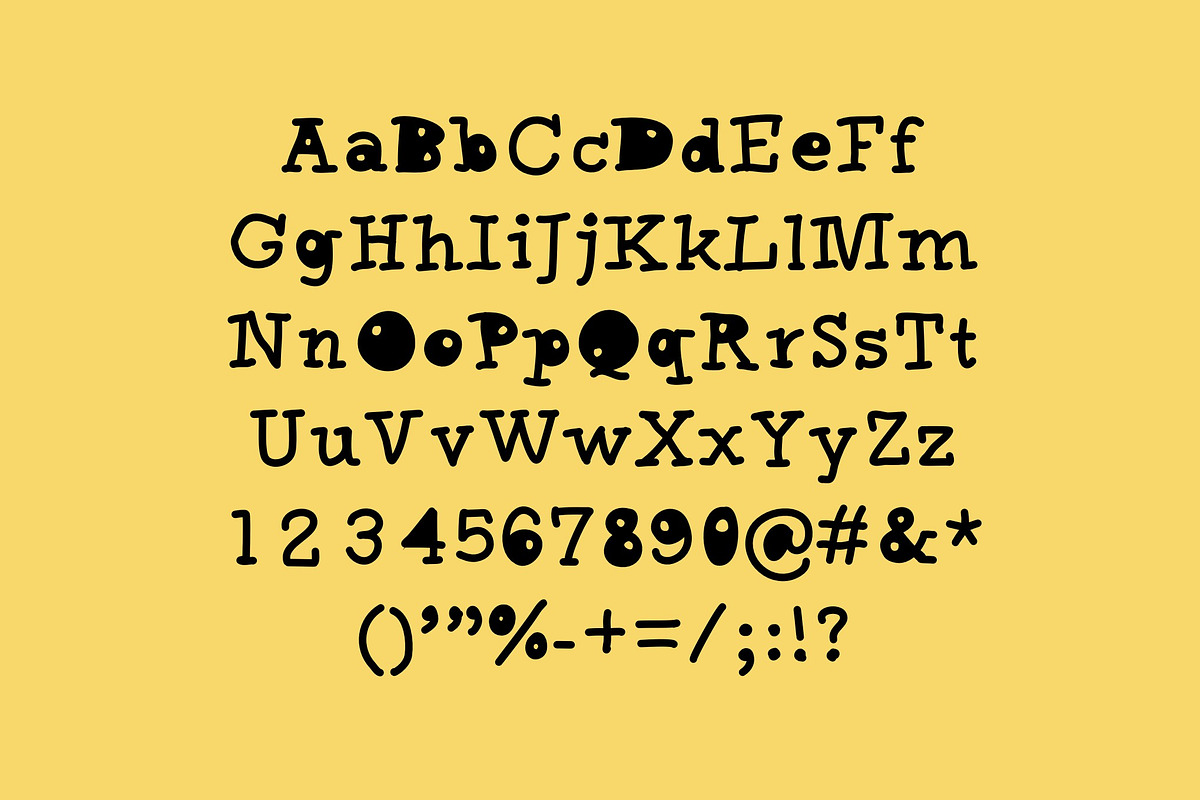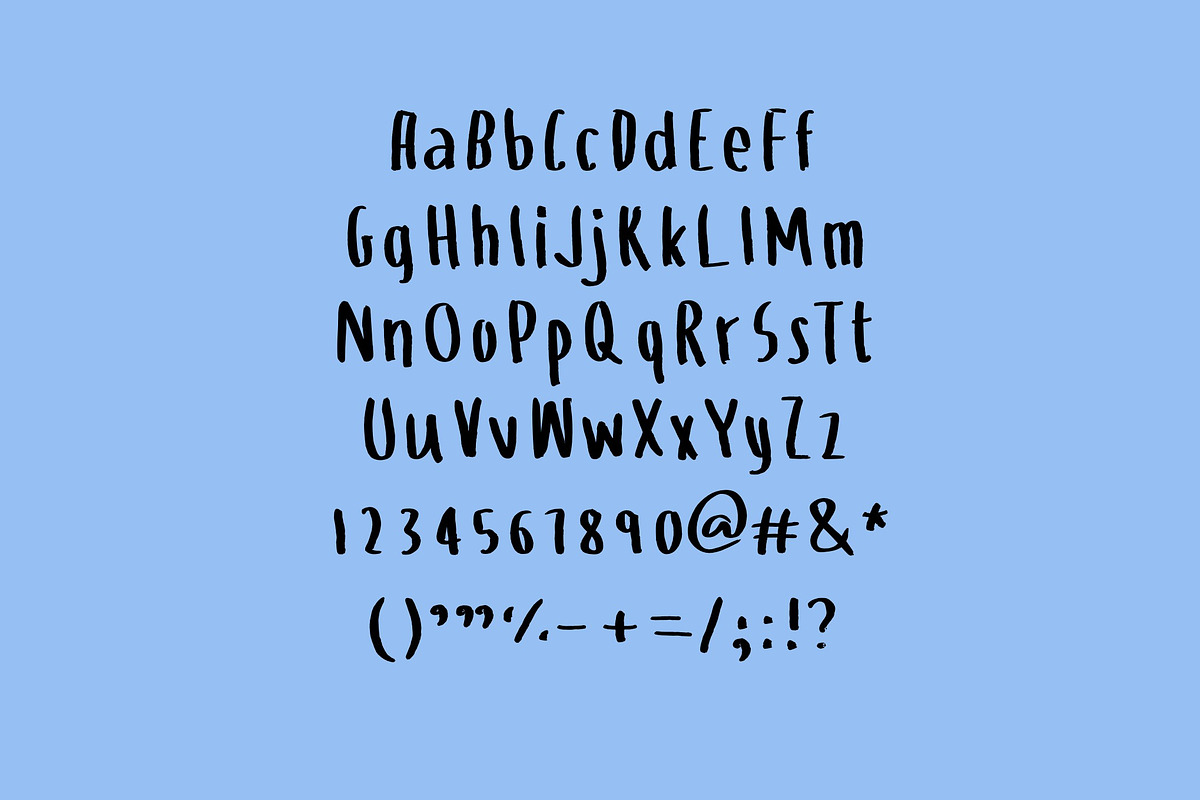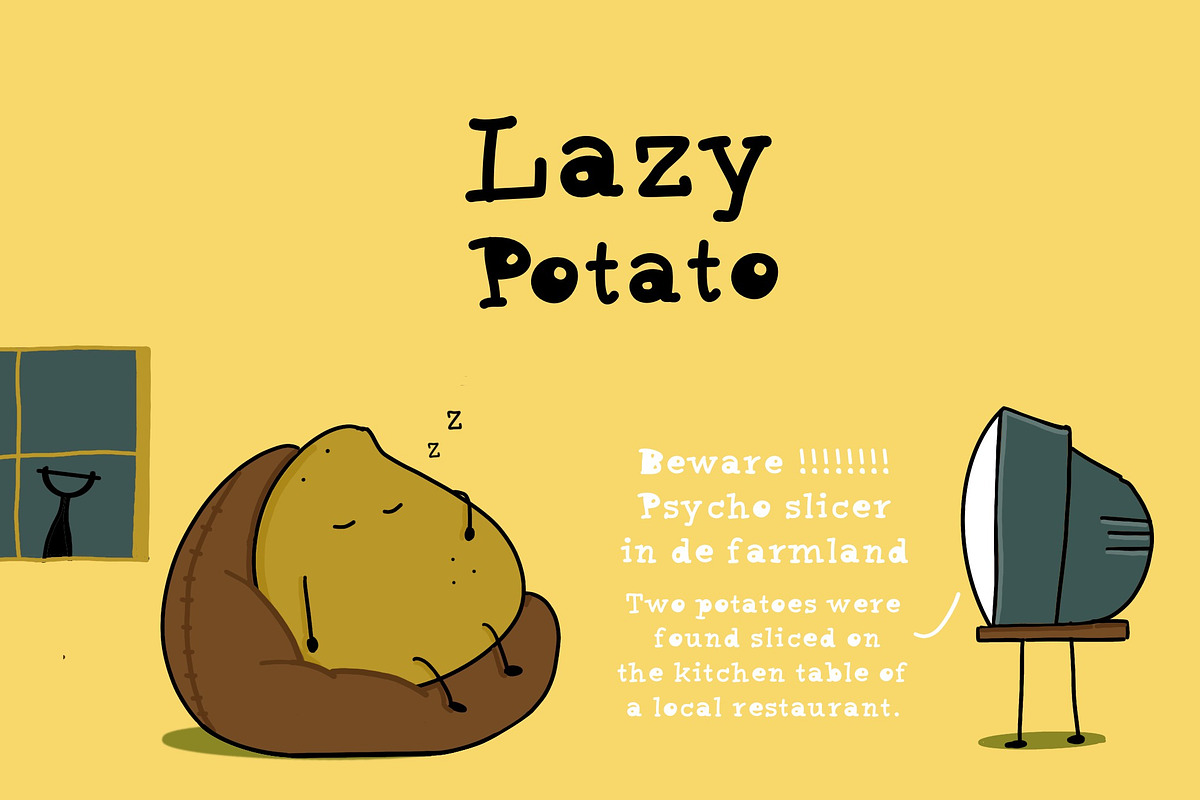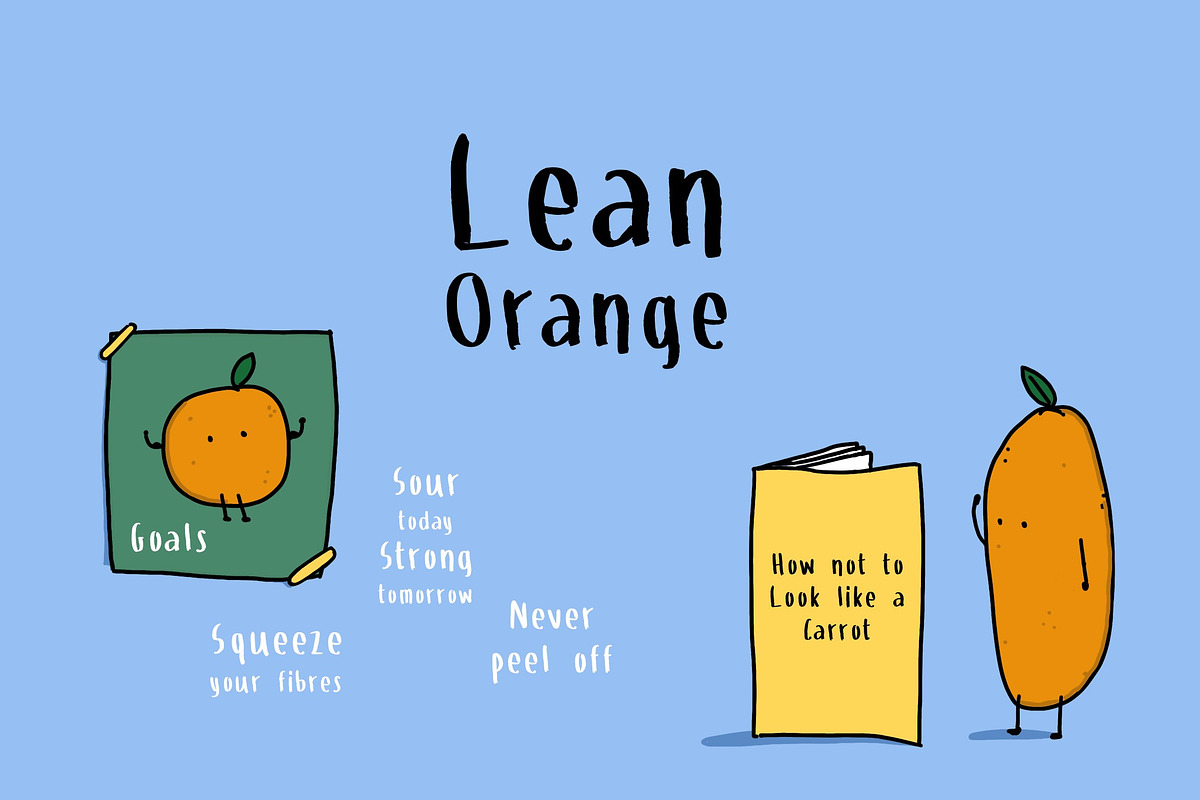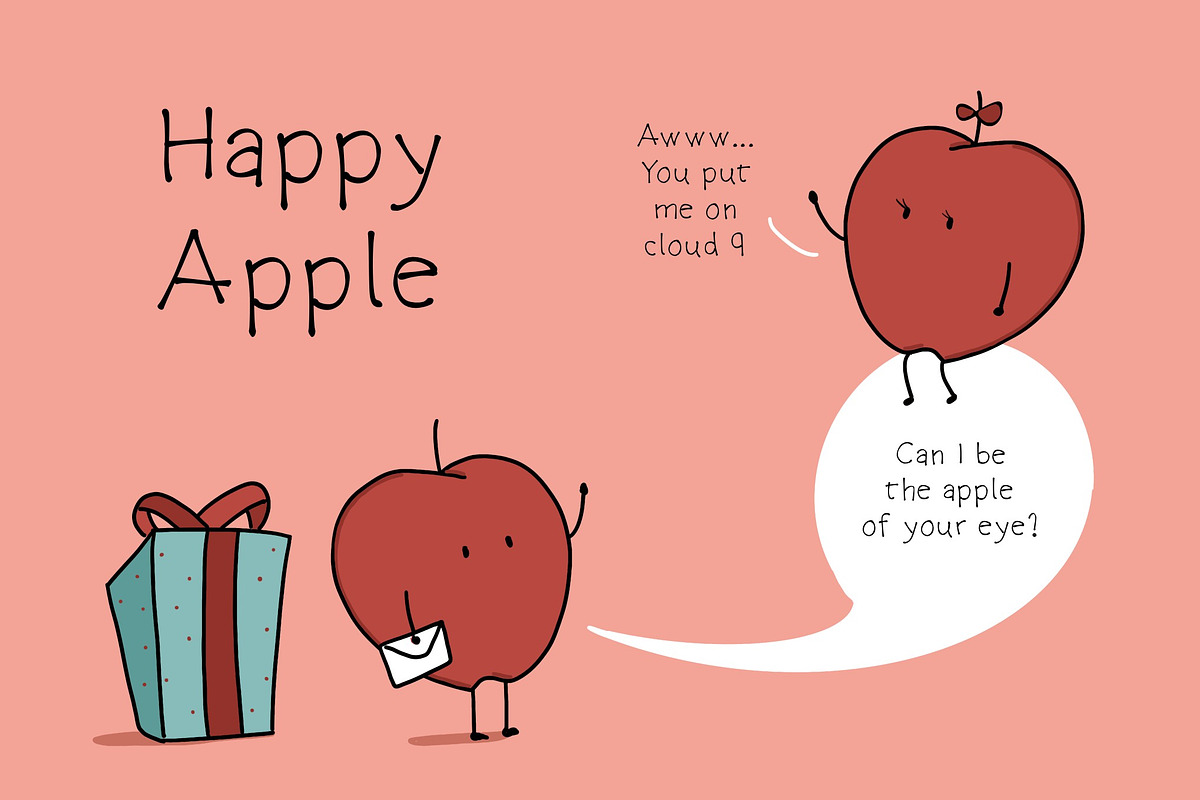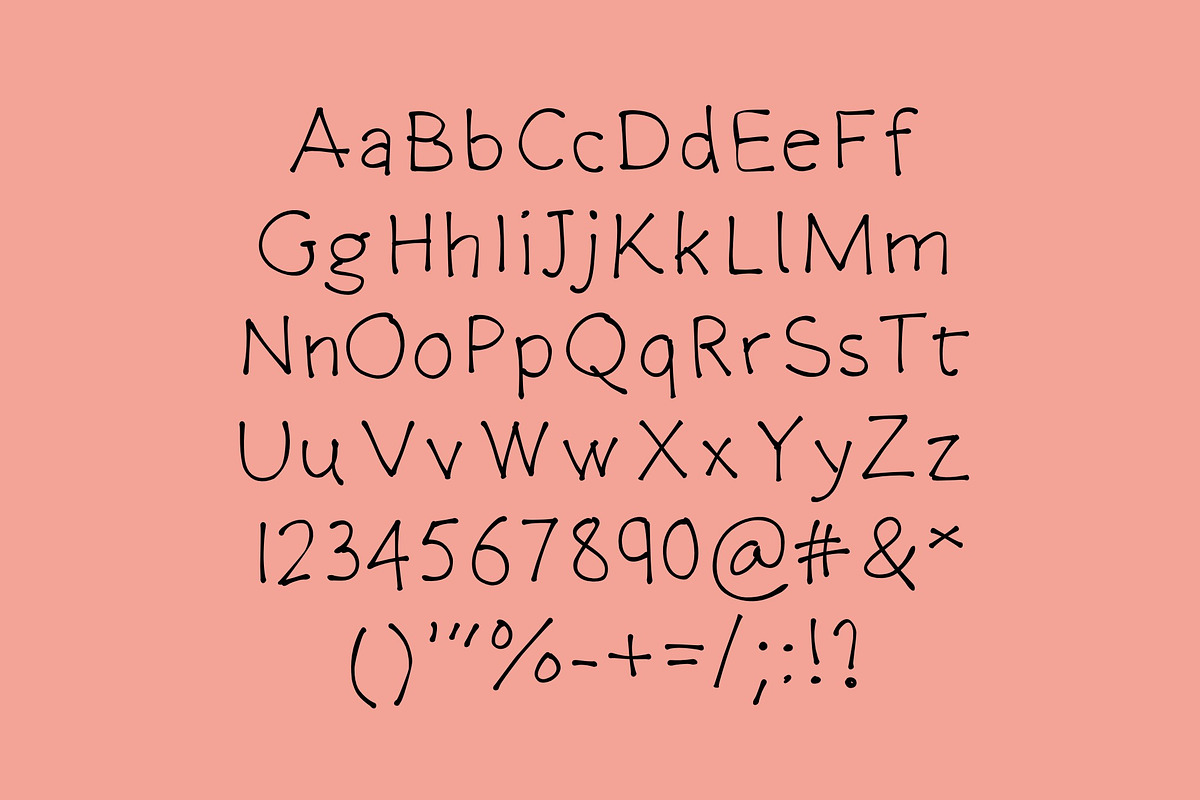
Quirky Fonts - Pack of 3
Lean Orange, Lazy Potato and Happy Apple are versatile upper and lowercase handwritten fonts. The fonts can go with comics, illustrations, greeting cards, children books, posters, Tees, postcards and wherever. They can be on web or make a great print. They are simple, quirky and legible. Furthermore I included a bonus of 3 wallpaper images, which I used for this presentation.
- DETAILS Lean Orange, Lazy Potato and Happy Apple are versatile upper and lowercase handwritten fonts.